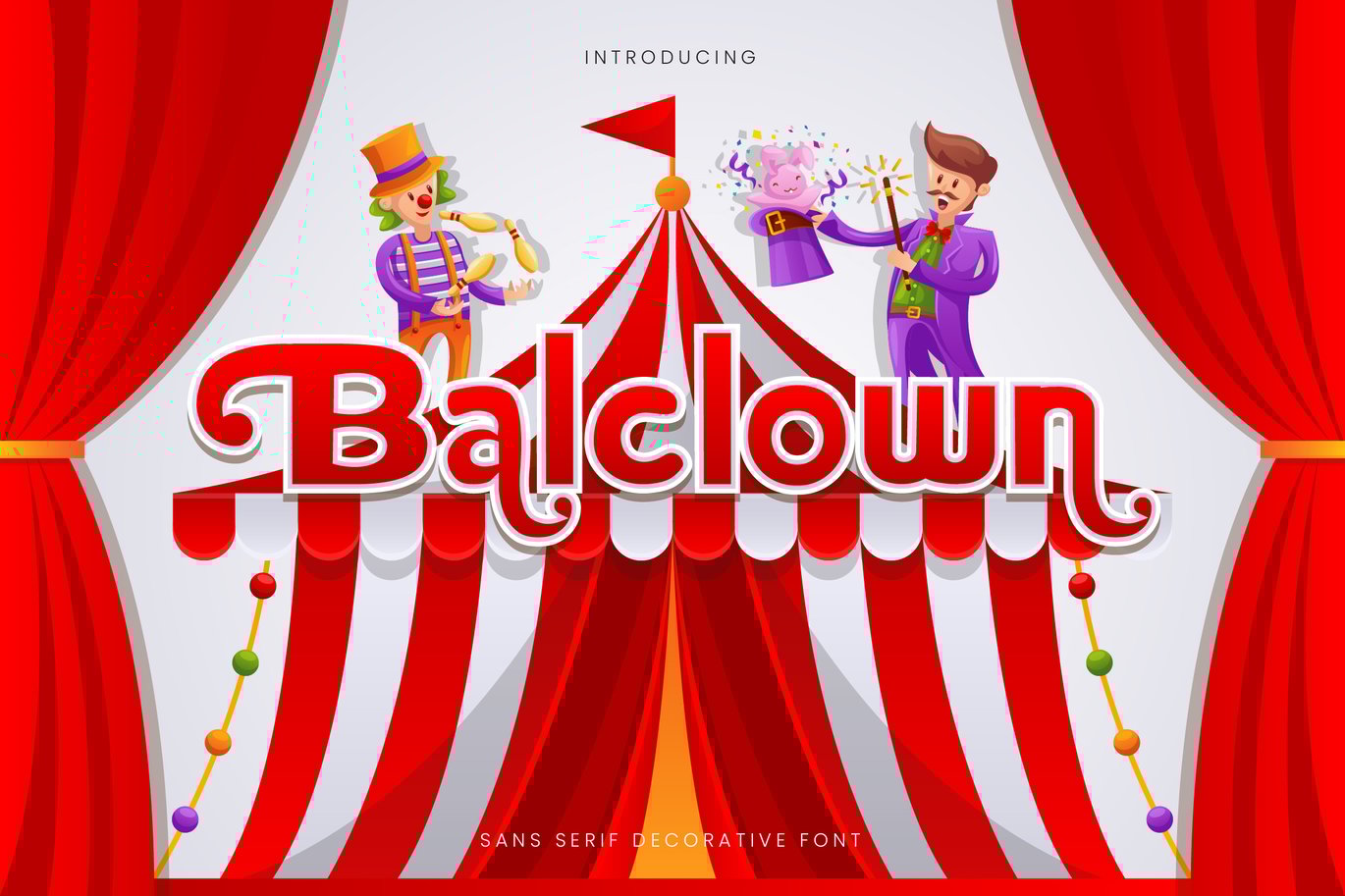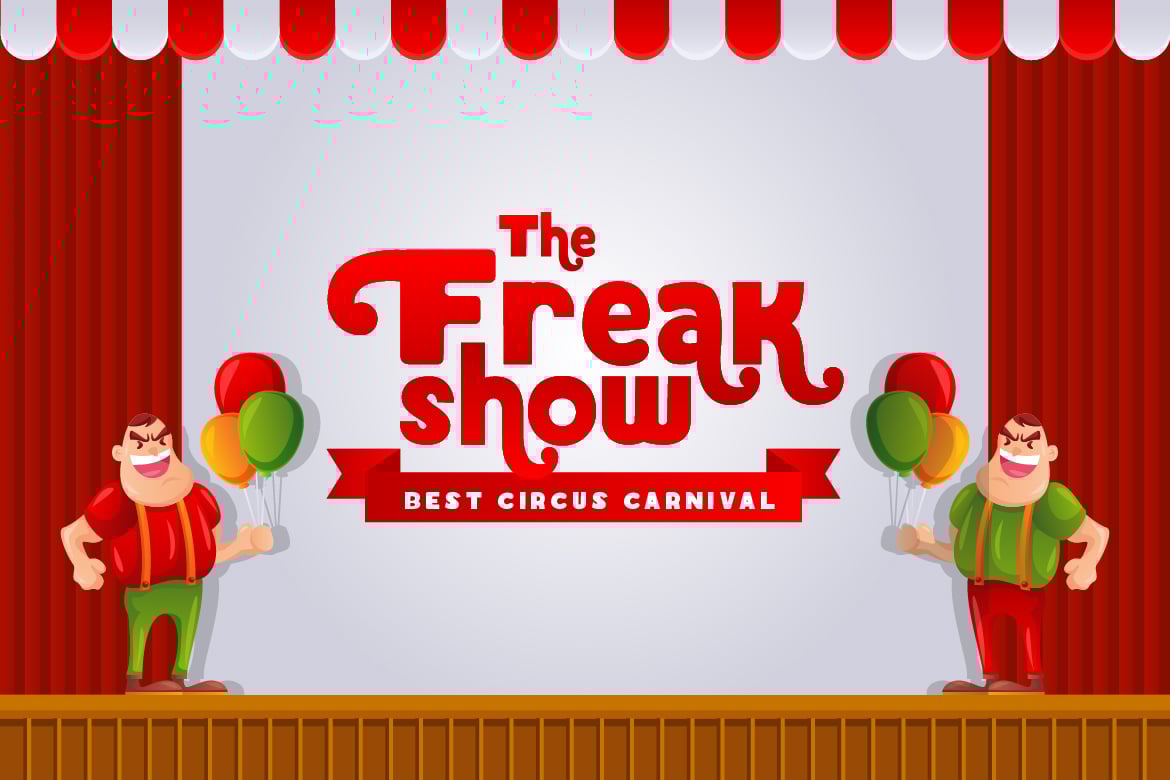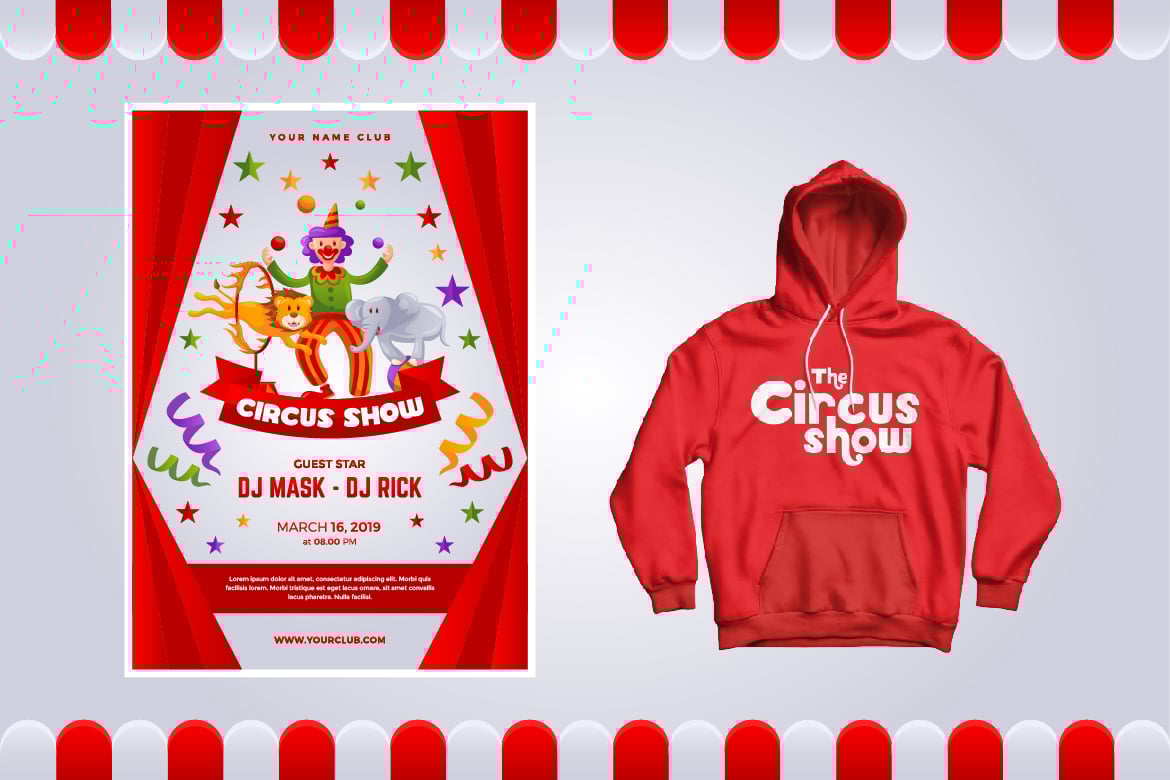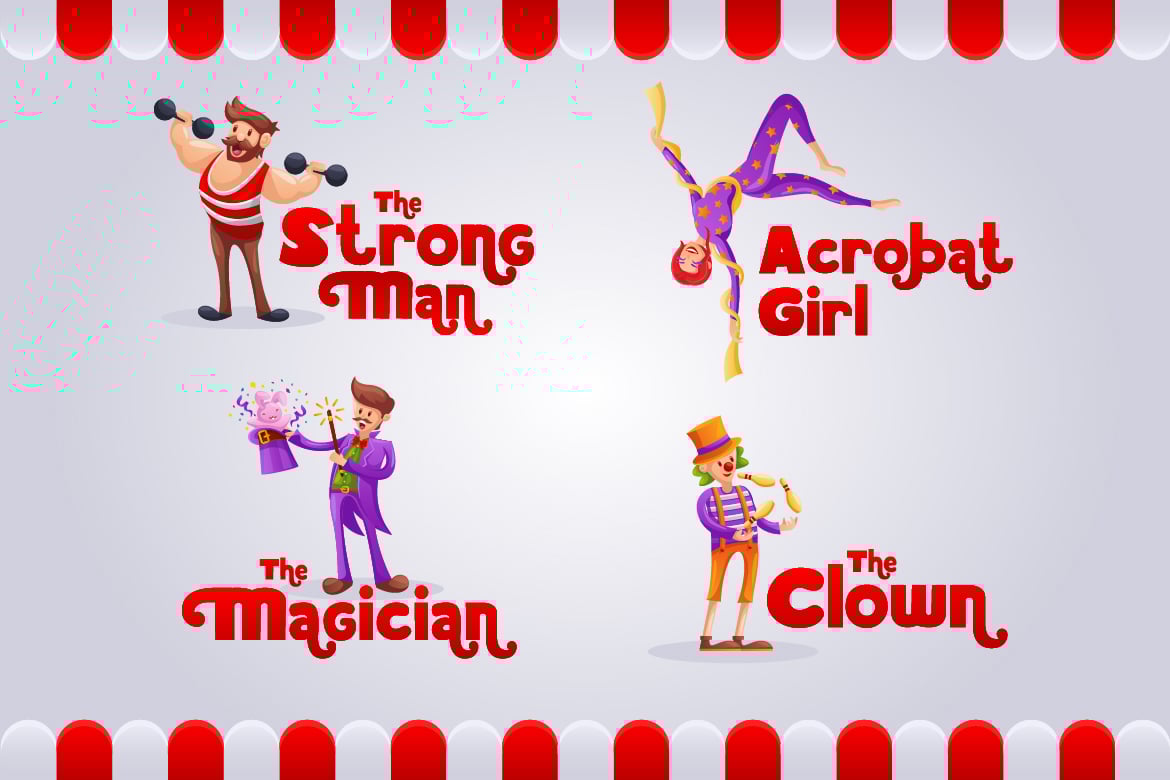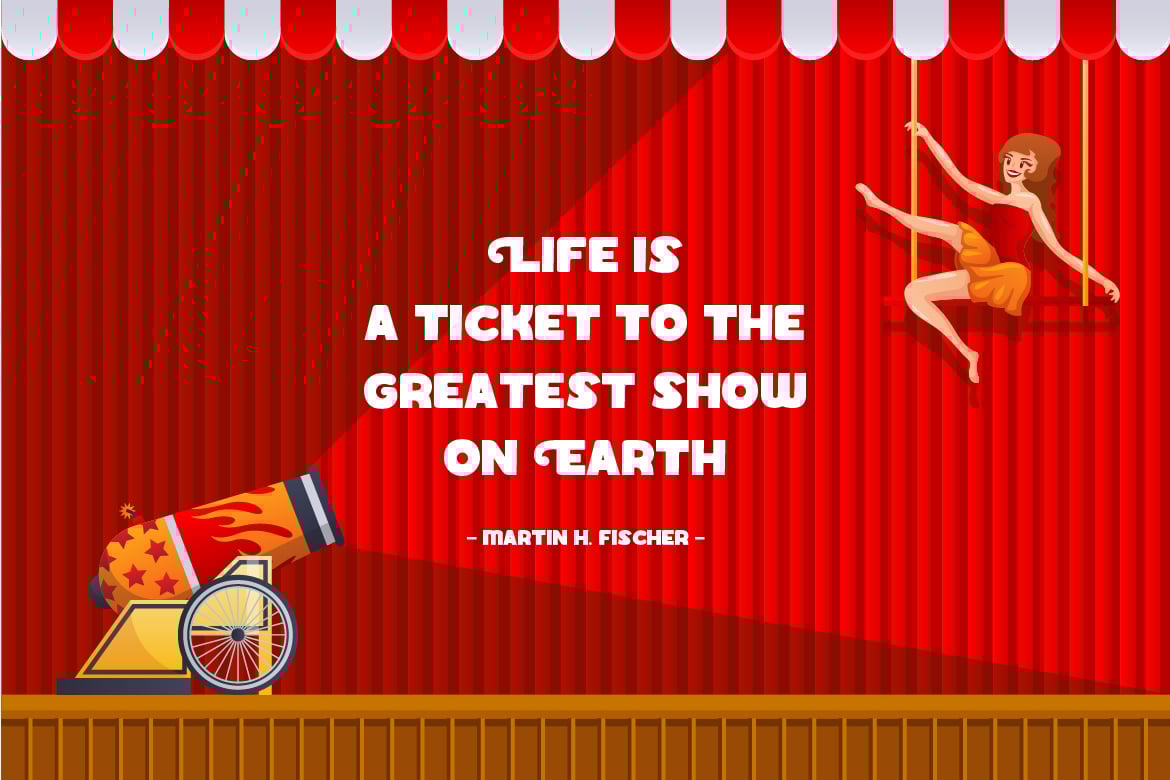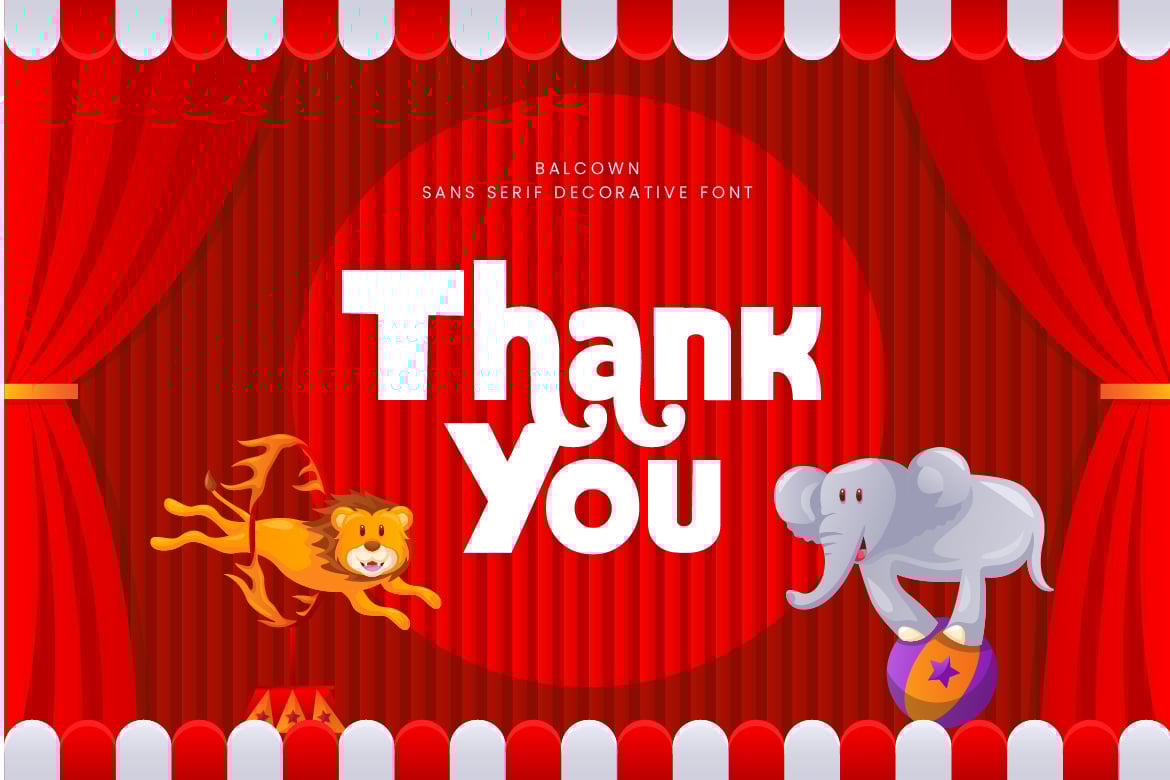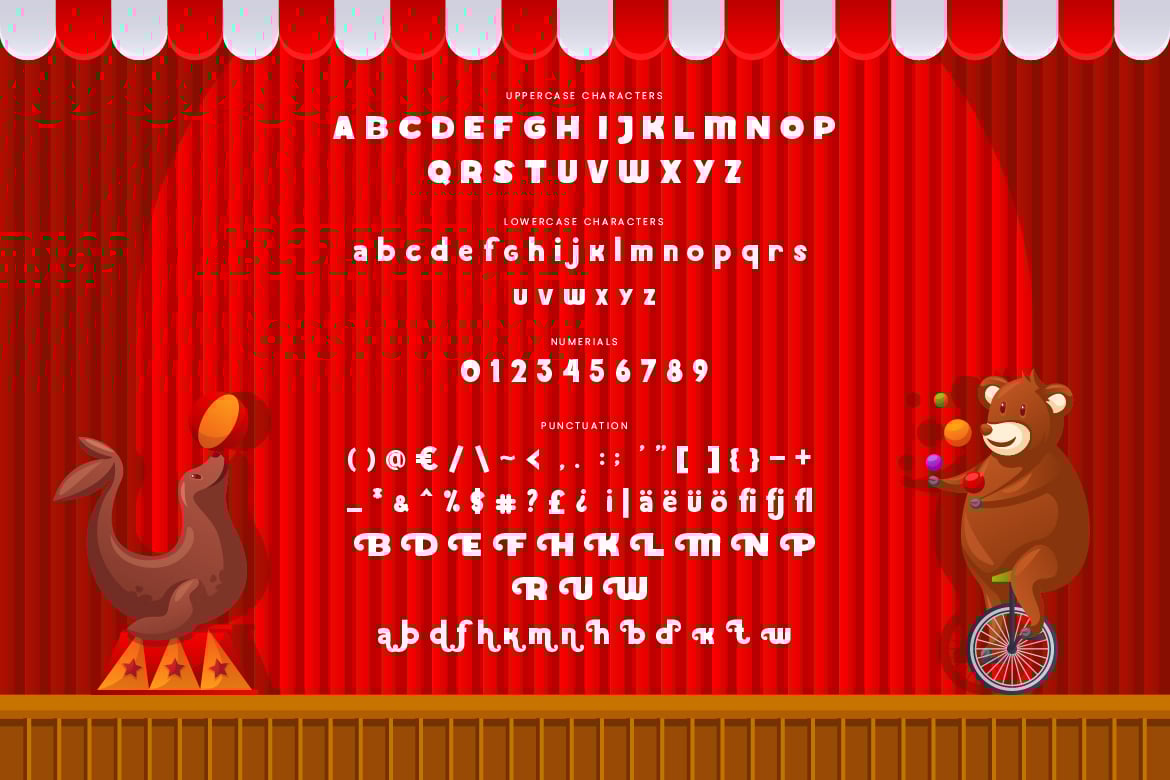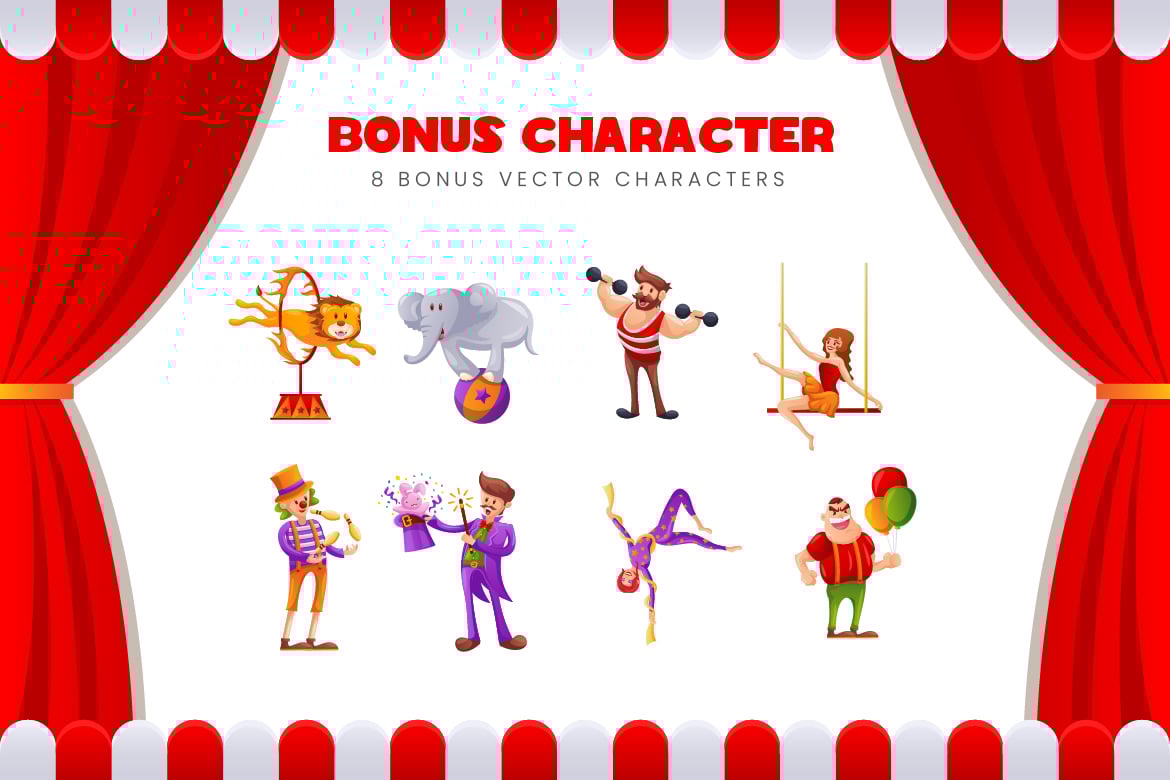
Balclown – Fun Bold Children Font
Are you looking for a bold and cute fun children font? We can help! Try to download our balclown font. The font is suitable to use for cute children purpose especially children related occasion π You will also received 8 cute circus character vector for free in Adobe Illustrator format!
- International Character